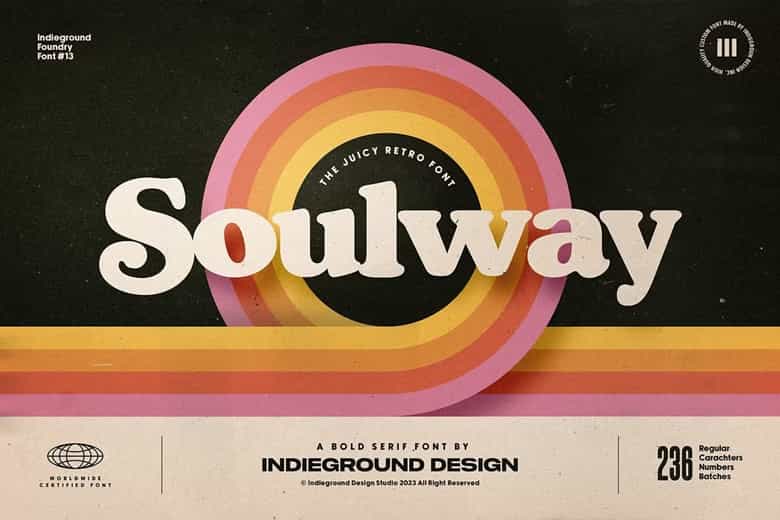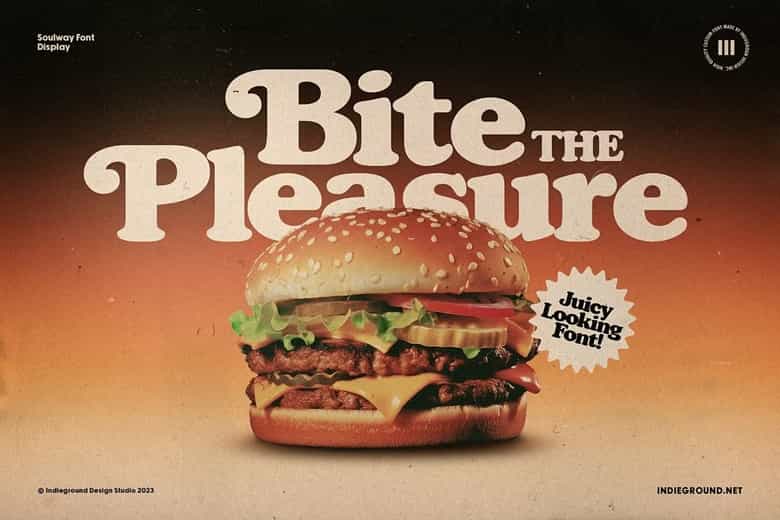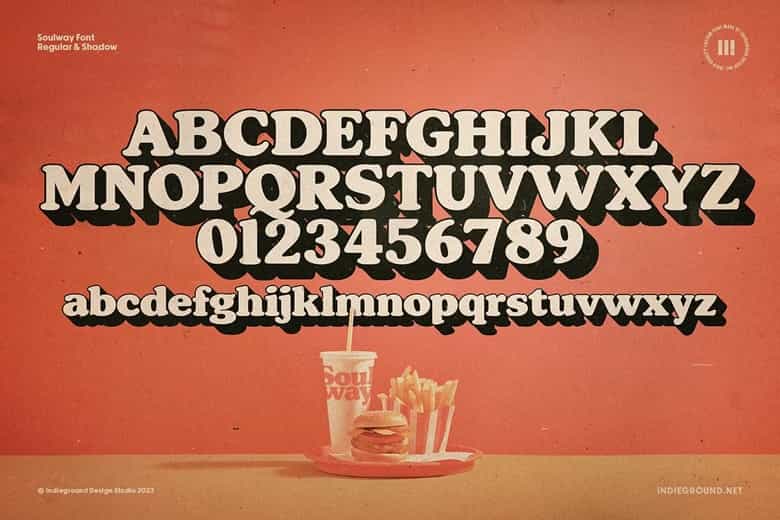
Soulway Font by Indieground, Soulway is a bold, curvy serif typeface that reflects the 70’s atmospheres and perfect to make your all digital artworks look retro. Created based on one of the most recognizable type faces of the recent decades, we present this display font in regular and shadow models. Of course, it can be used to make artwork, album covers, posters, and flyers with exactly the right tone of aged nostalgia.